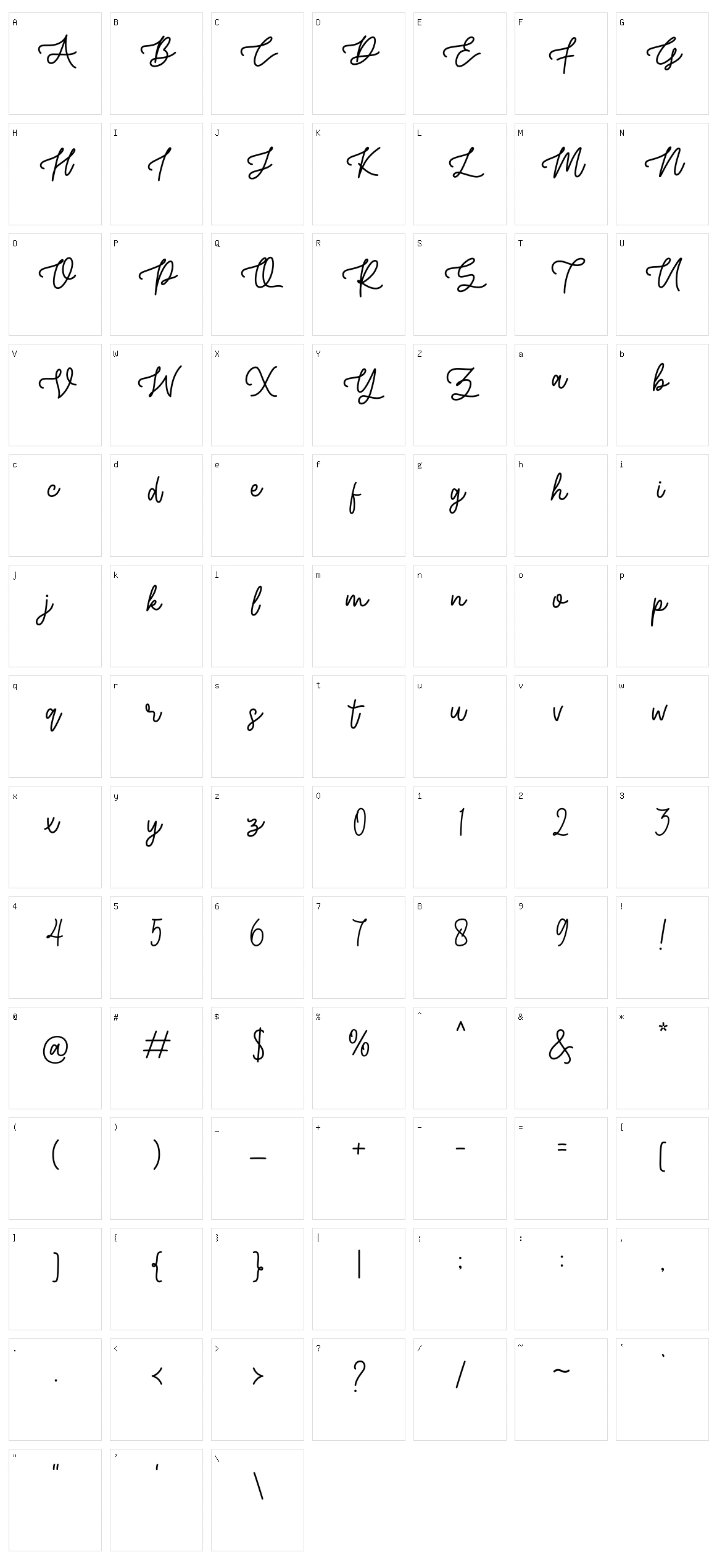
The free font Sweet Valentines is carefully designed by Puri Creative, showcasing a thoughtful balance of creativity and usability and falls under the Script font style. When you download the ZIP file, it contains only 254.51 KB of font files, making it lightweight and quick to download. Please review the license details below to understand permitted usage and distribution rights. If license information is not available, we recommend using this font for personal projects only or contacting the author directly for commercial usage permissions.